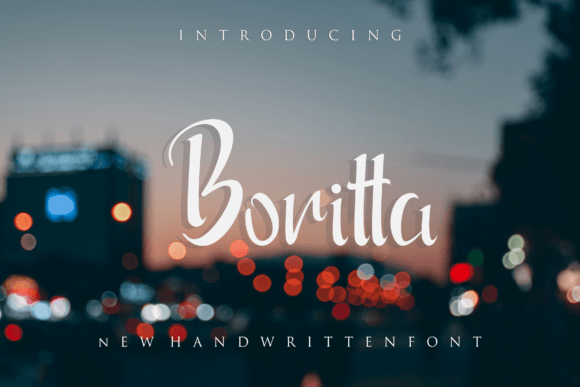
Boritta Font: The Ultimate Choice for Bold and Authentic Designs
In the world of typography, a font can make or break a design. It’s the foundation upon which the entire visual identity of a brand is built. For designers and crafters looking for a bold and authentic handwritten font, Boritta is an excellent choice. This versatile font is suitable for a wide range of branding projects, from logos and t-shirt printing to exports and more.
The Unique Characteristics of Boritta Font
Boritta Font is a bold and authentic handwritten font that exudes confidence and personality. Its unique characteristics make it stand out in a wide range of contexts, from digital platforms to print materials. The font’s bold and expressive strokes give it a distinctive look that’s both modern and timeless.
What Makes Boritta Font So Versatile?
Boritta Font is incredibly versatile, making it suitable for various design projects. Here are some reasons why:
- Logo Design: Boritta Font is perfect for creating memorable and impactful logos that make a statement.
- T-Shirt Printing: The font’s bold and clear design ensures that your message or logo stands out on t-shirts and other apparel.
- Export and Packaging: Boritta Font is ideal for product packaging, labels, and exports, adding a touch of personality to your brand’s visual identity.
- Digital Platforms: The font’s clean and legible design makes it suitable for digital platforms, including social media, websites, and mobile applications.
The Benefits of Using Boritta Font
Using Boritta Font in your design projects offers several benefits, including:
- Instant Recognition: The font’s bold and authentic design ensures instant recognition and recall.
- Emotional Connection: Boritta Font helps create an emotional connection with your audience, making your brand more relatable and memorable.
- Flexibility: The font’s versatility allows you to use it across various design projects, from print to digital.
- Time-Saving: Boritta Font saves you time and effort, as you don’t need to spend hours designing a font from scratch.
Tips for Using Boritta Font Effectively
To get the most out of Boritta Font, follow these tips:
- Pair it with Other Fonts: Combine Boritta Font with other fonts to create a unique and visually appealing design.
- Keep it Simple: Don’t overcomplicate your design – keep it simple and clean to let Boritta Font shine.
Boritta Font is a bold and authentic handwritten font that’s perfect for designers and crafters looking for a versatile and impactful font. Its unique characteristics, versatility, and benefits make it an excellent choice for various design projects. By following the tips outlined above, you can unlock the full potential of Boritta Font and create stunning designs that leave a lasting impression.